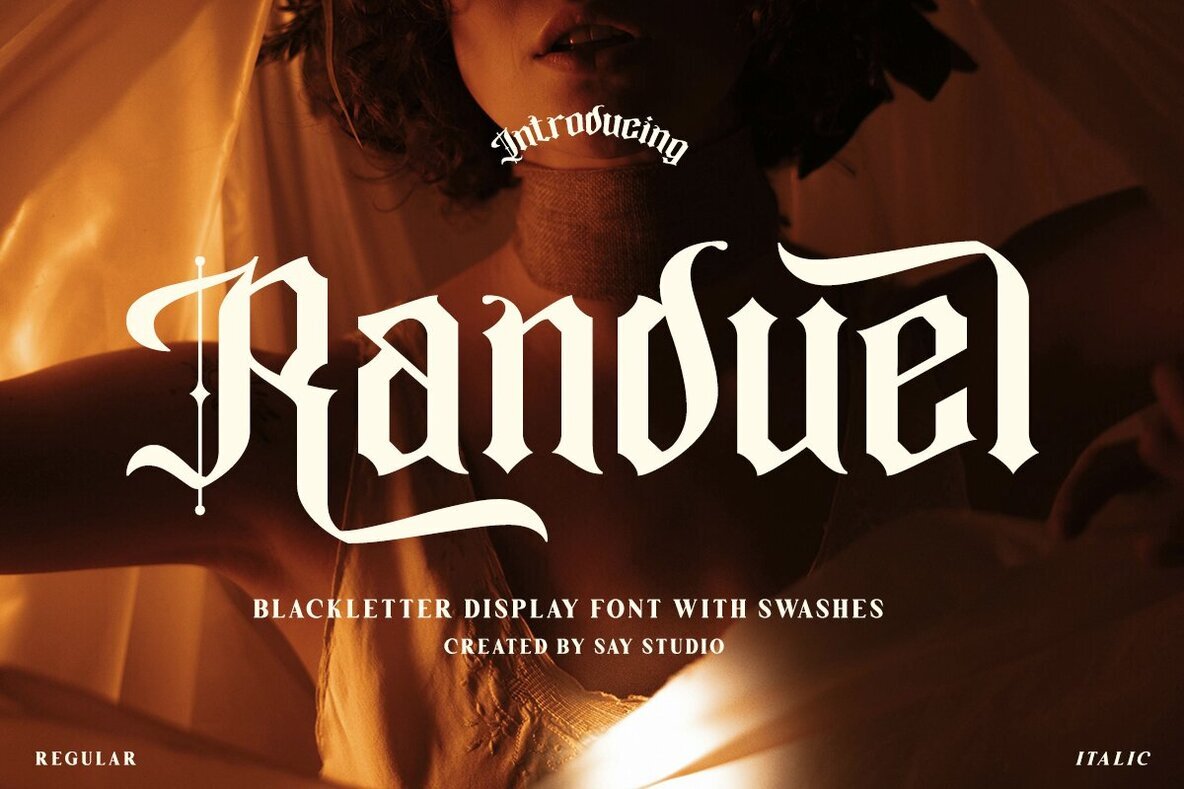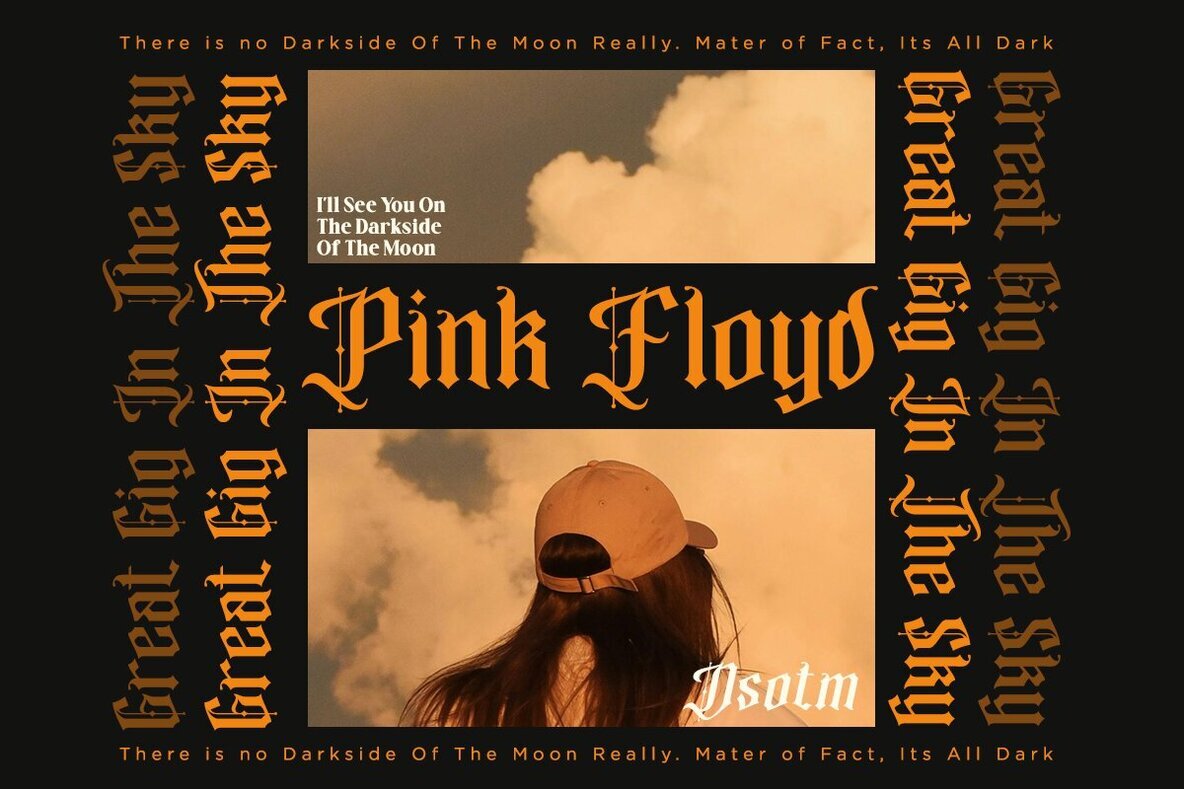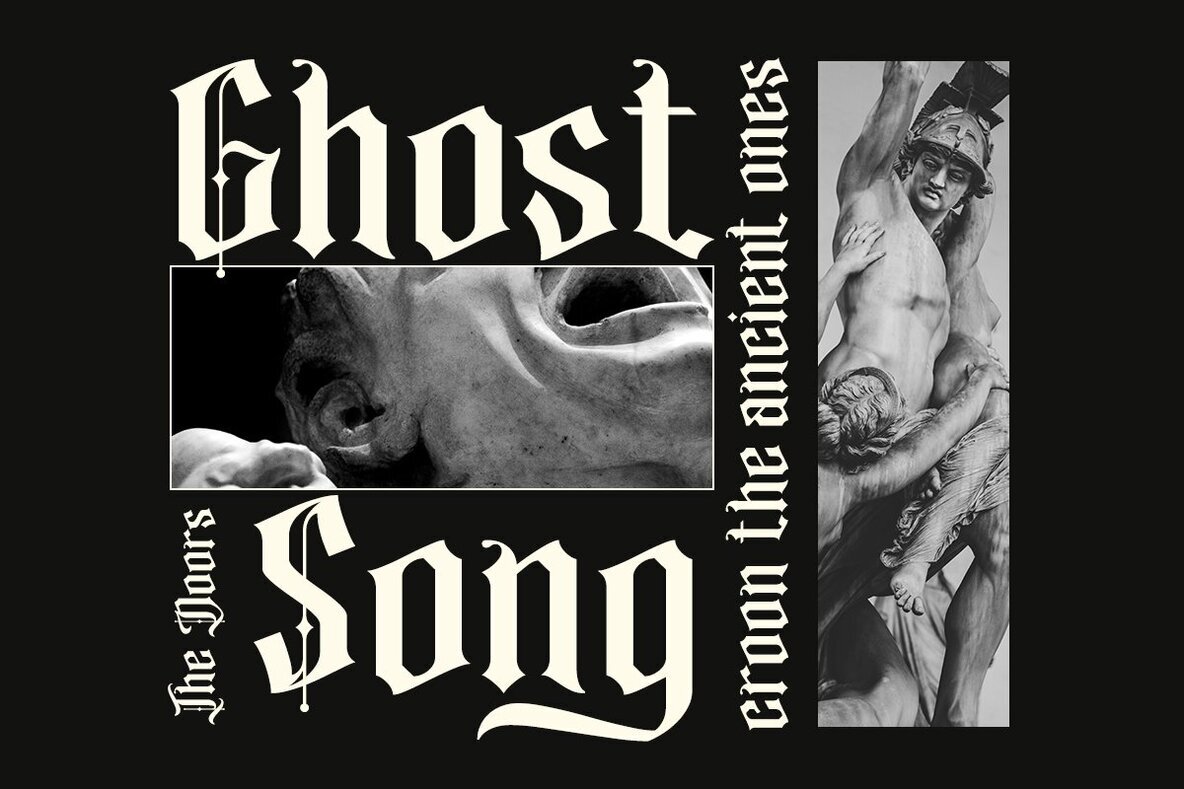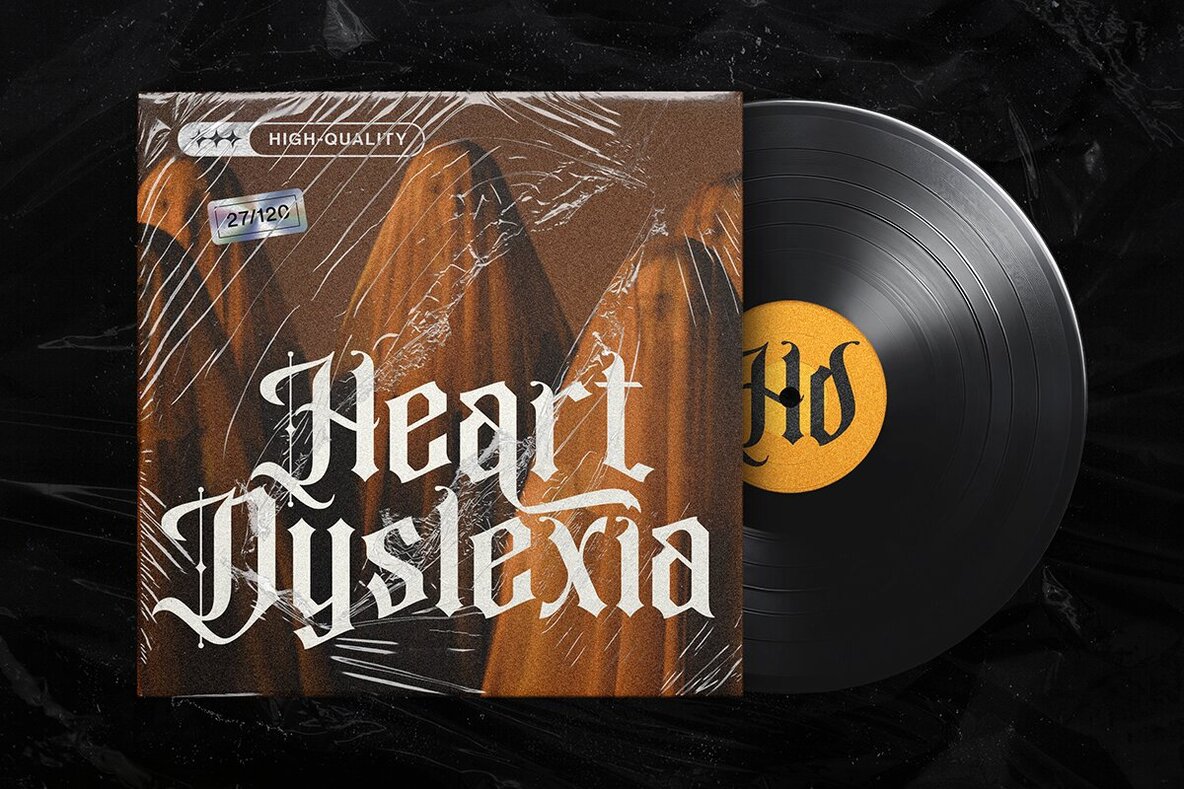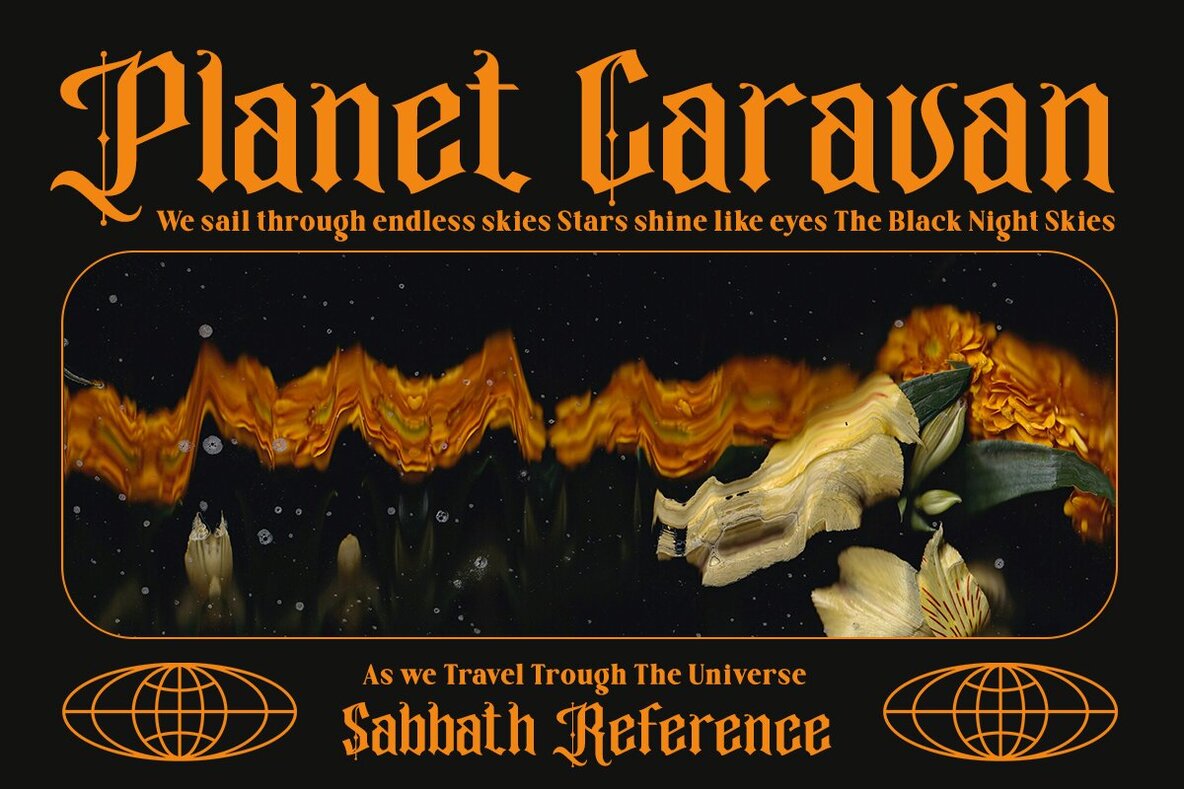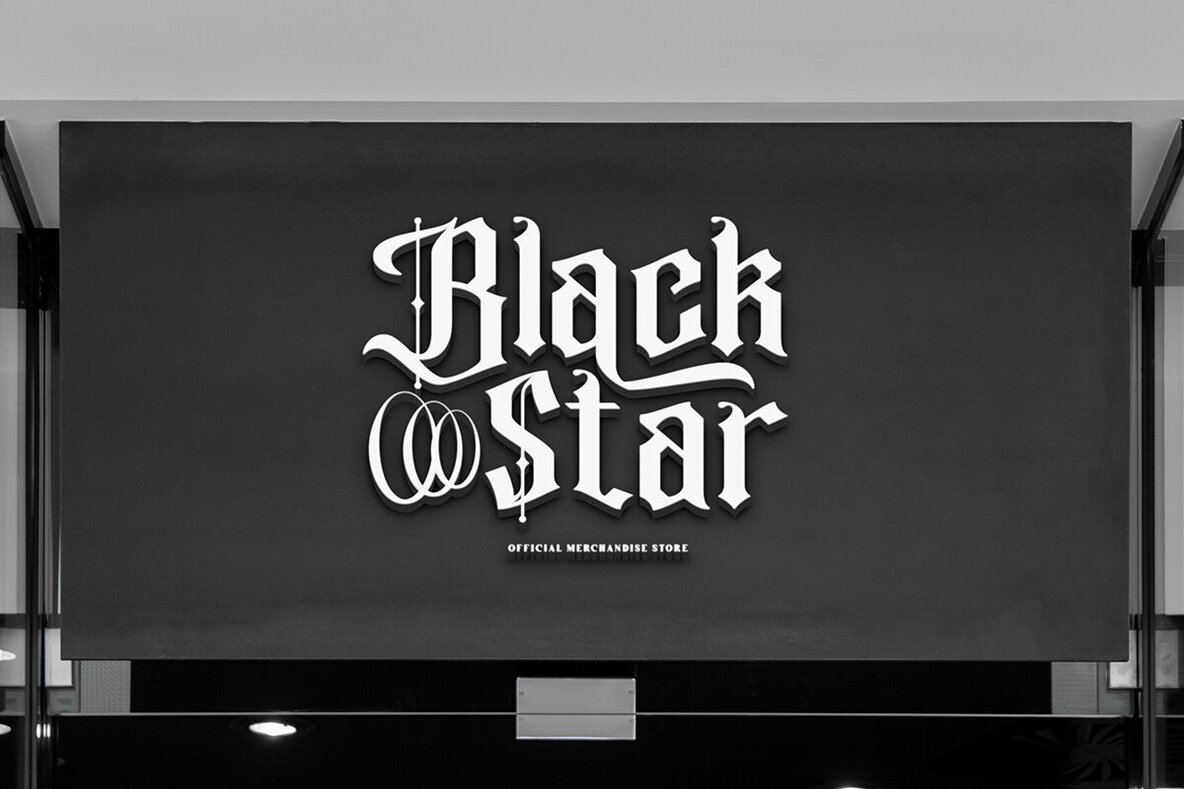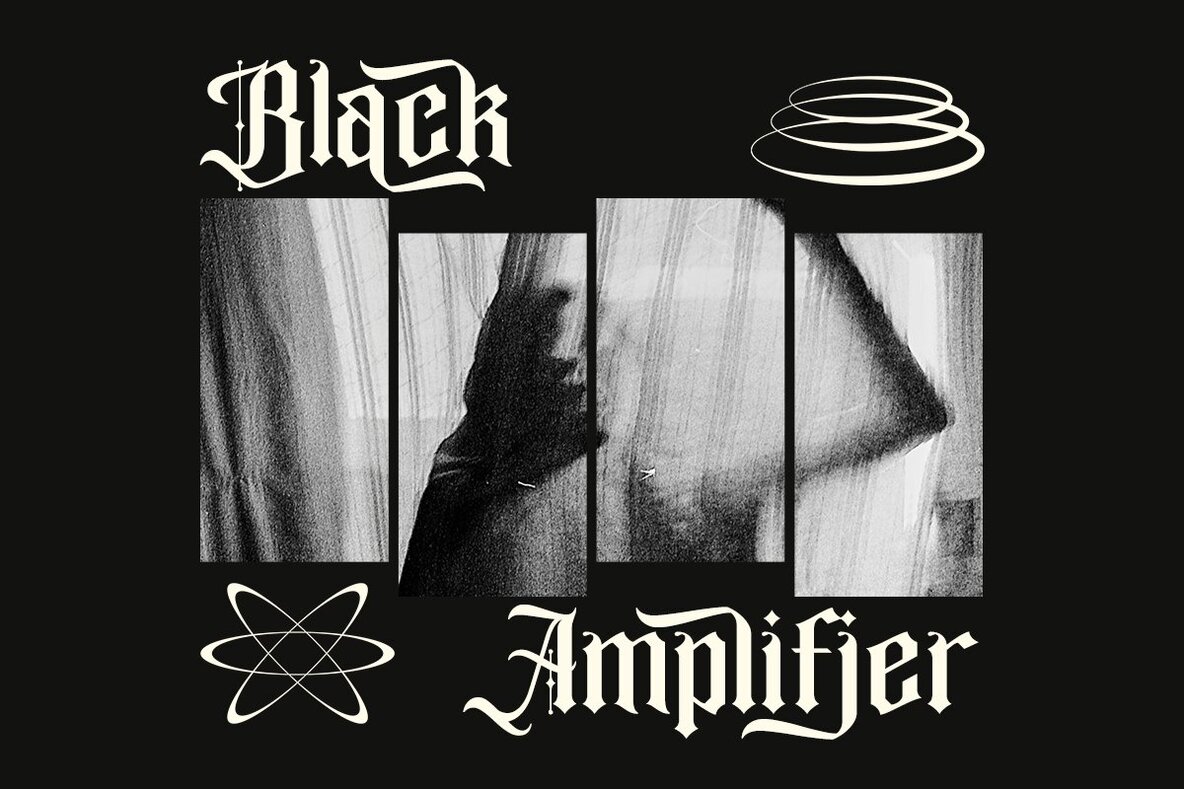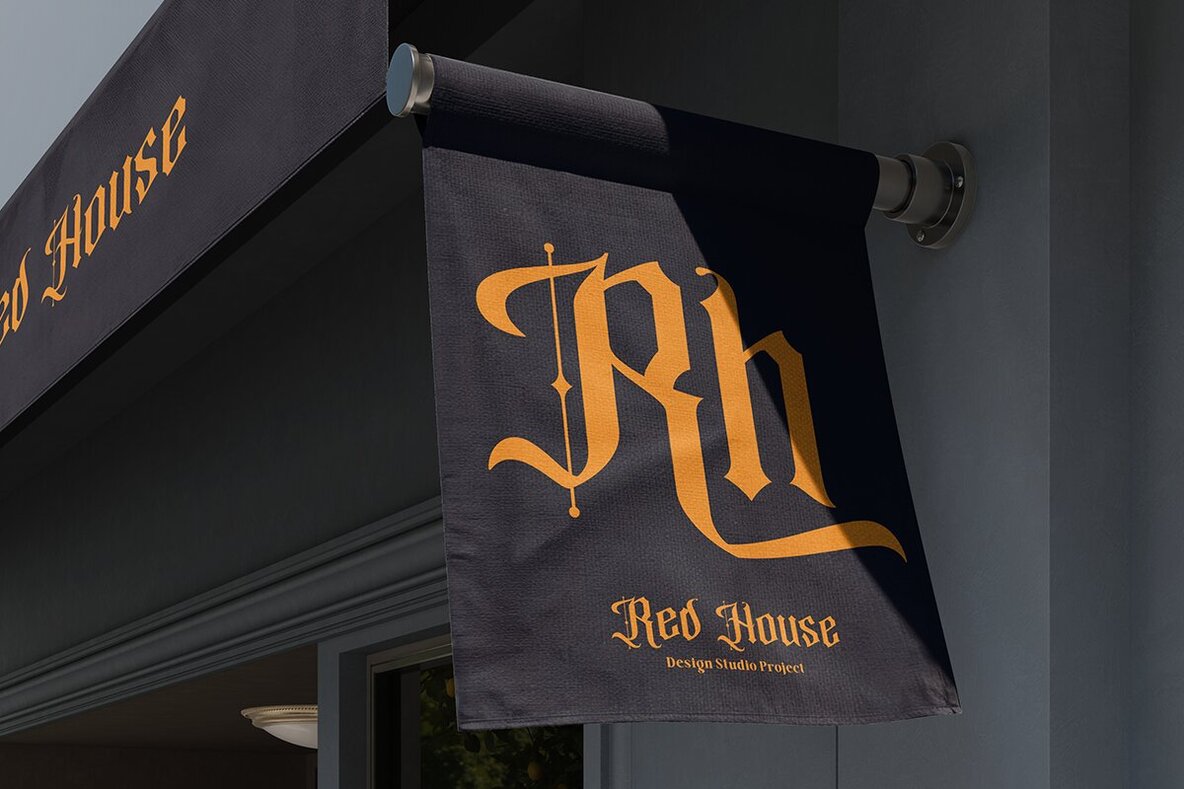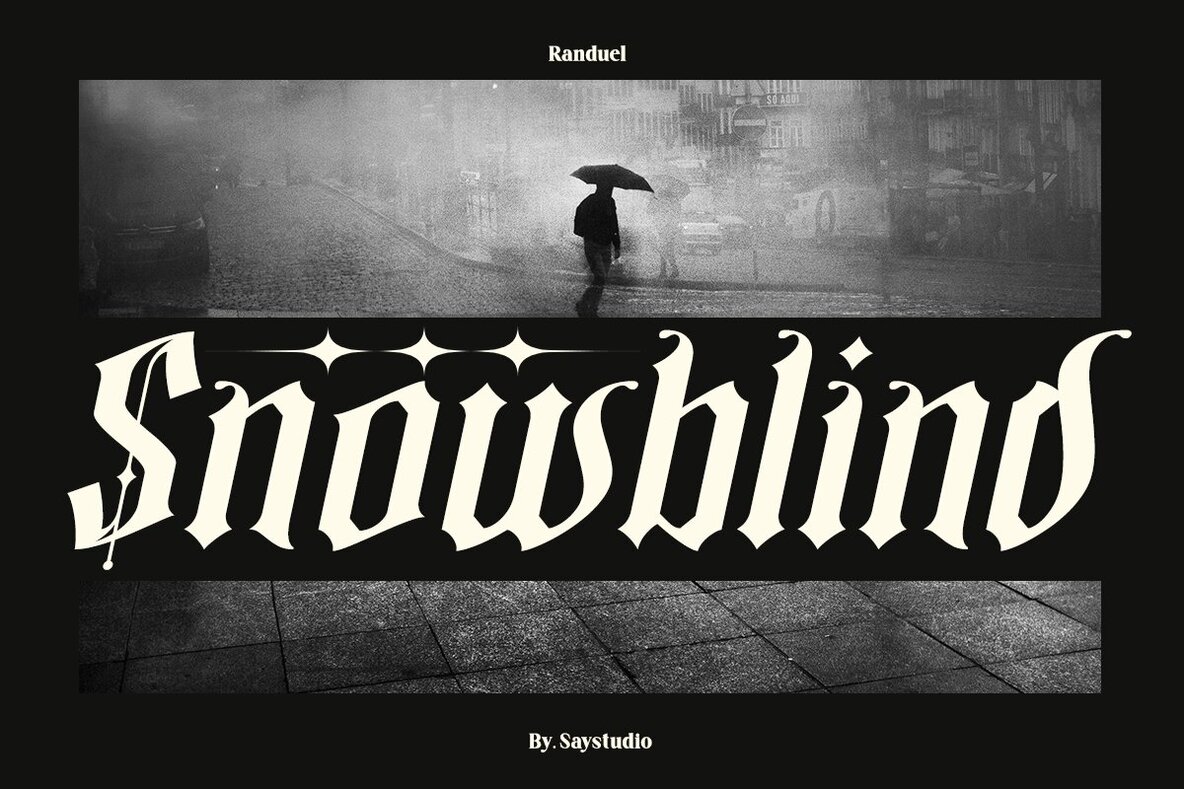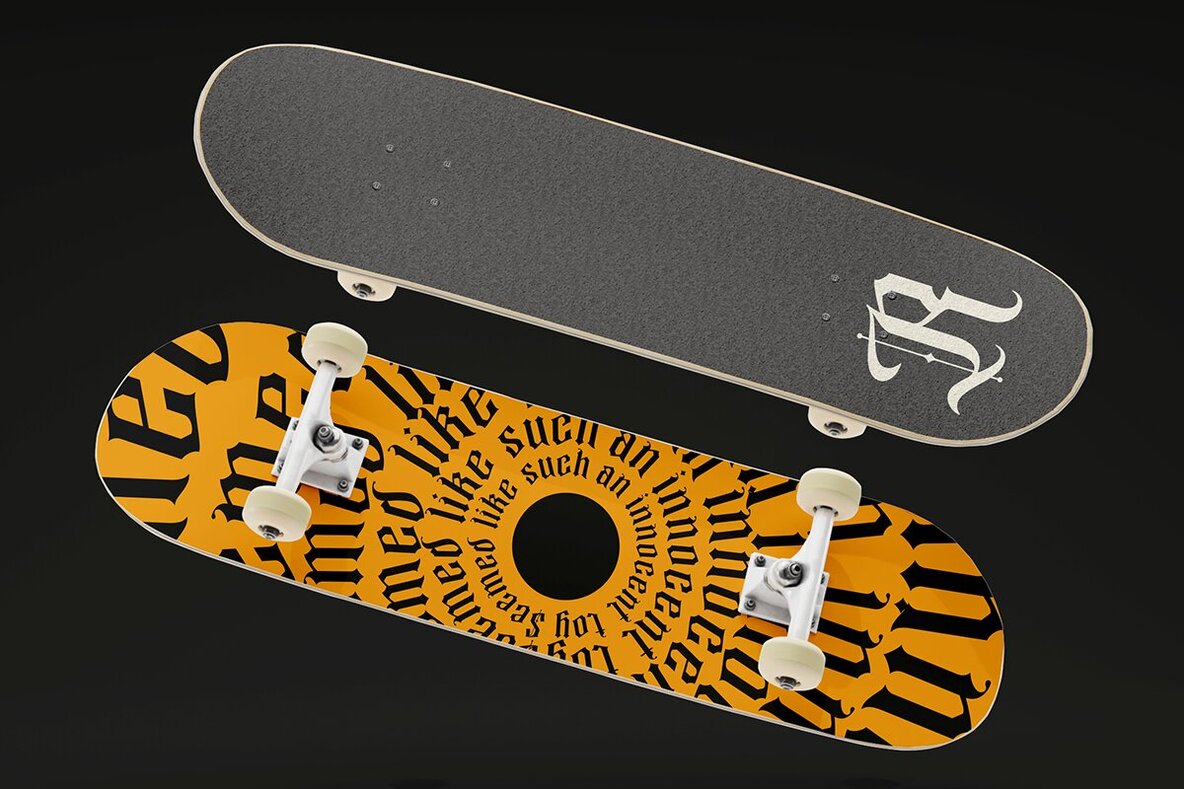
Randuel Font
Randuel brings the distinctive character of Old English blackletter styles into a bold, modern context. This display font features both regular and italic character sets, each available with stylistic alternates and expressive swashes. The design draws on the historical blackletter tradition of Western Europe while introducing a contemporary twist suited for impactful visual statements. Randuel stands out in projects where dramatic text and classic style are essential. It’s an ideal choice for logotypes, headlines, newspaper titles, book covers, certificates, comic and beer labels, merchandise, packaging, badges, emblems, or tattoo designs. The strong letterforms and detailed swashes add presence without sacrificing readability. Multiple language support ensures broad versatility for international applications.Randuel Blackletter Display Font